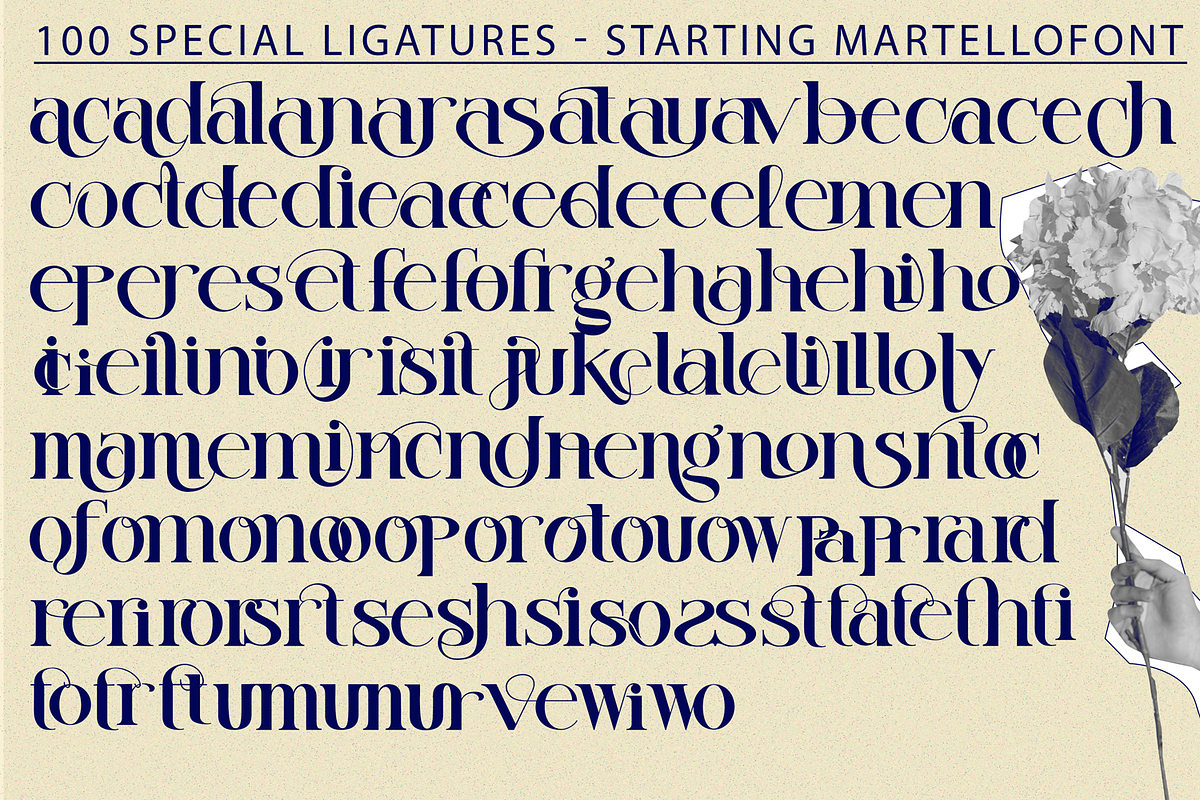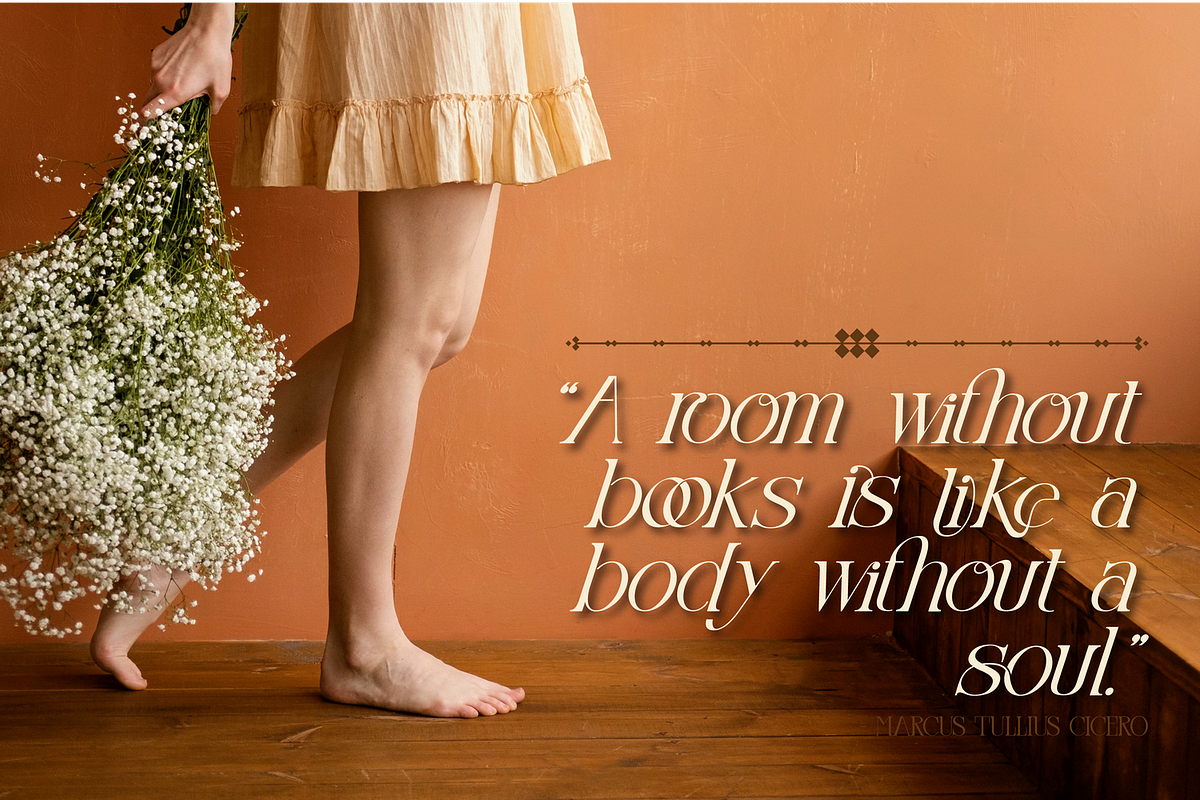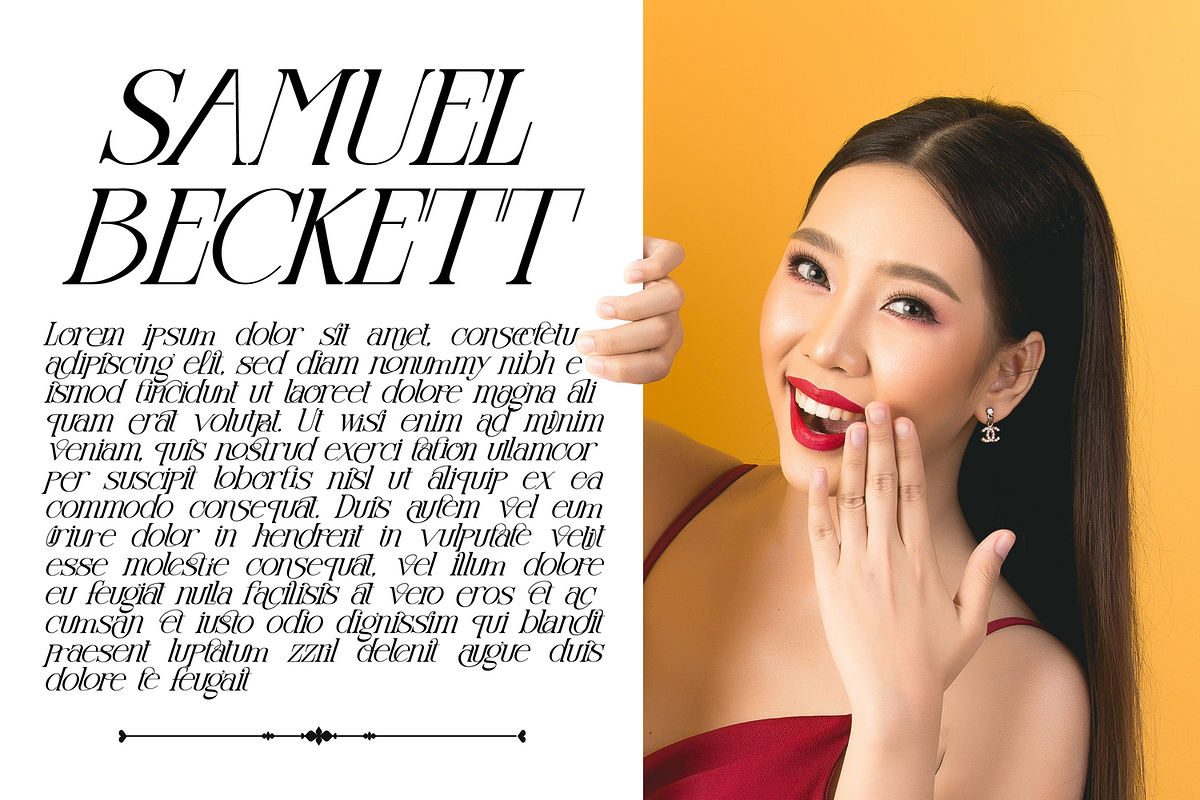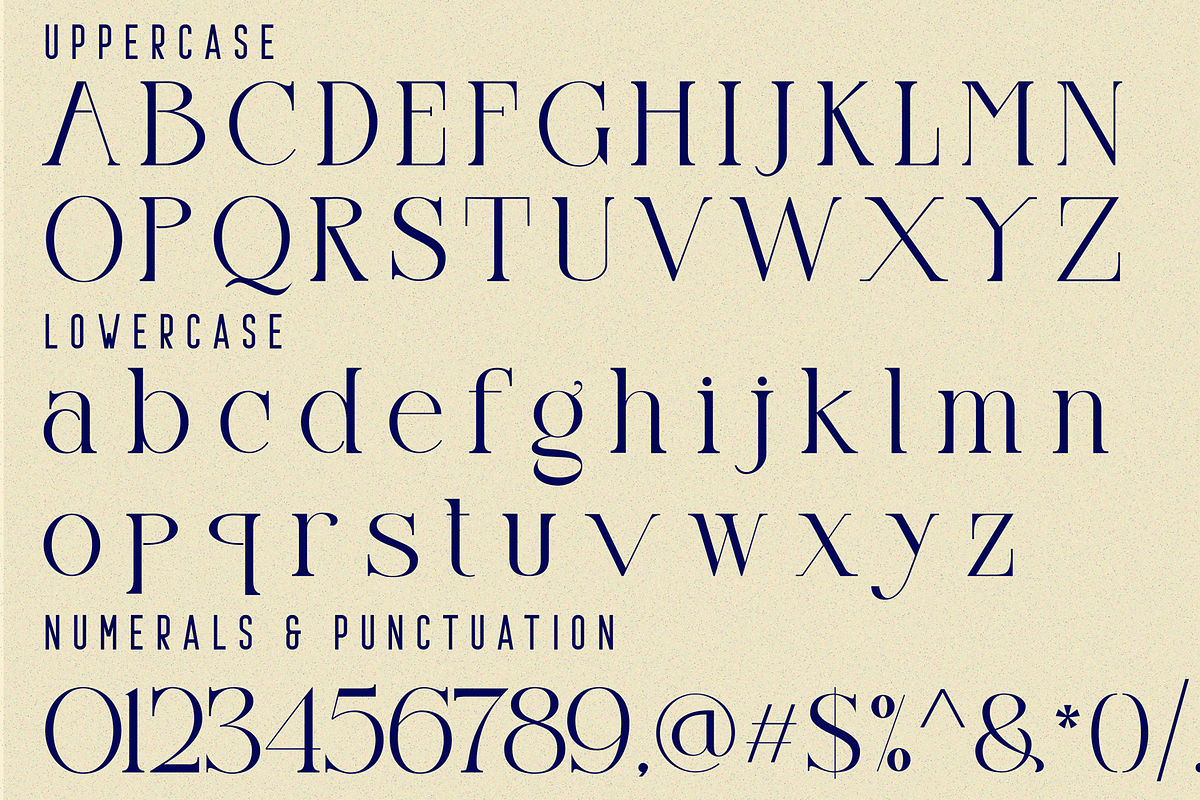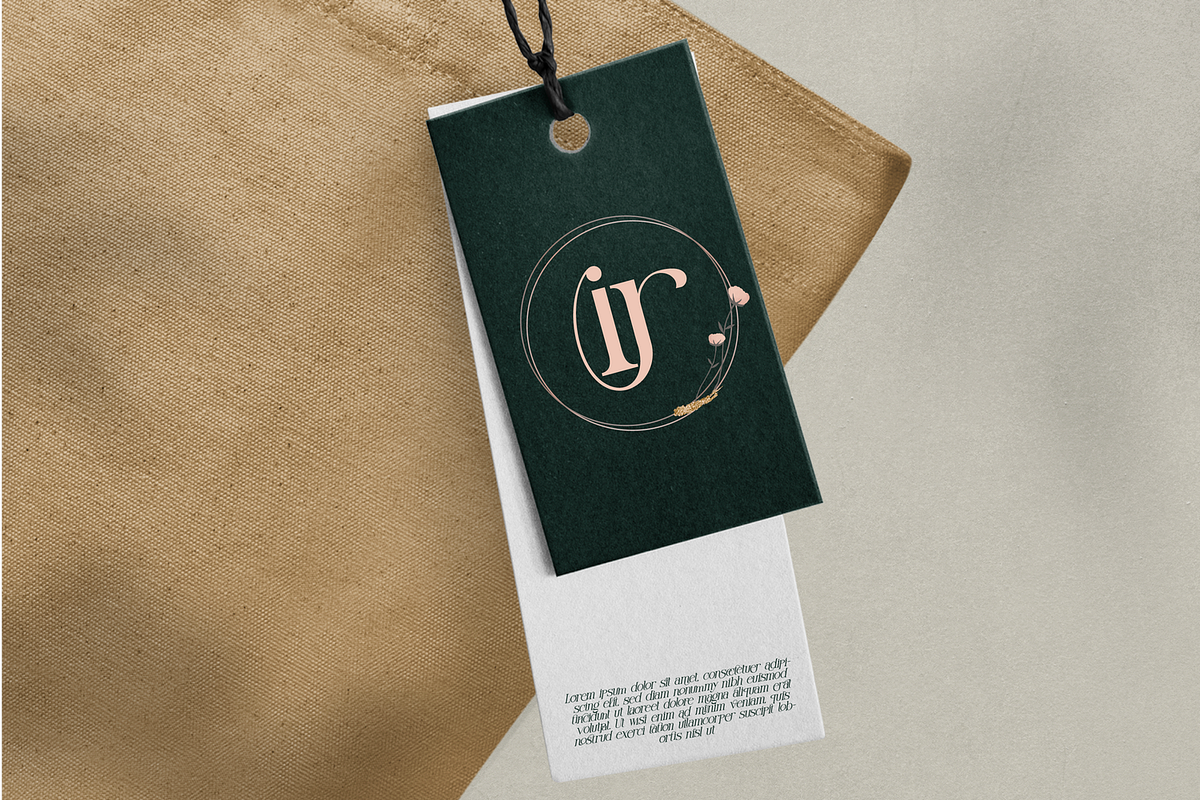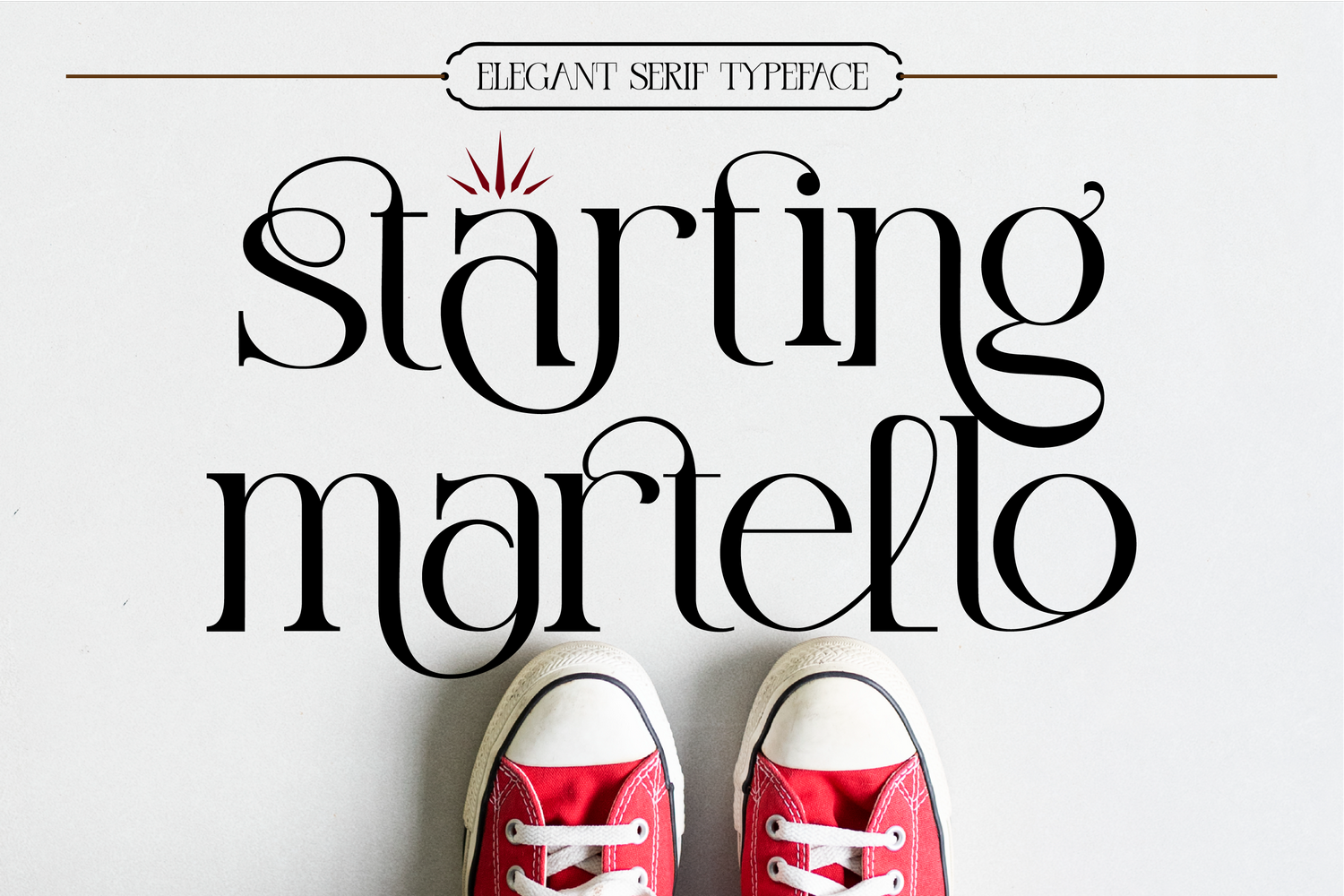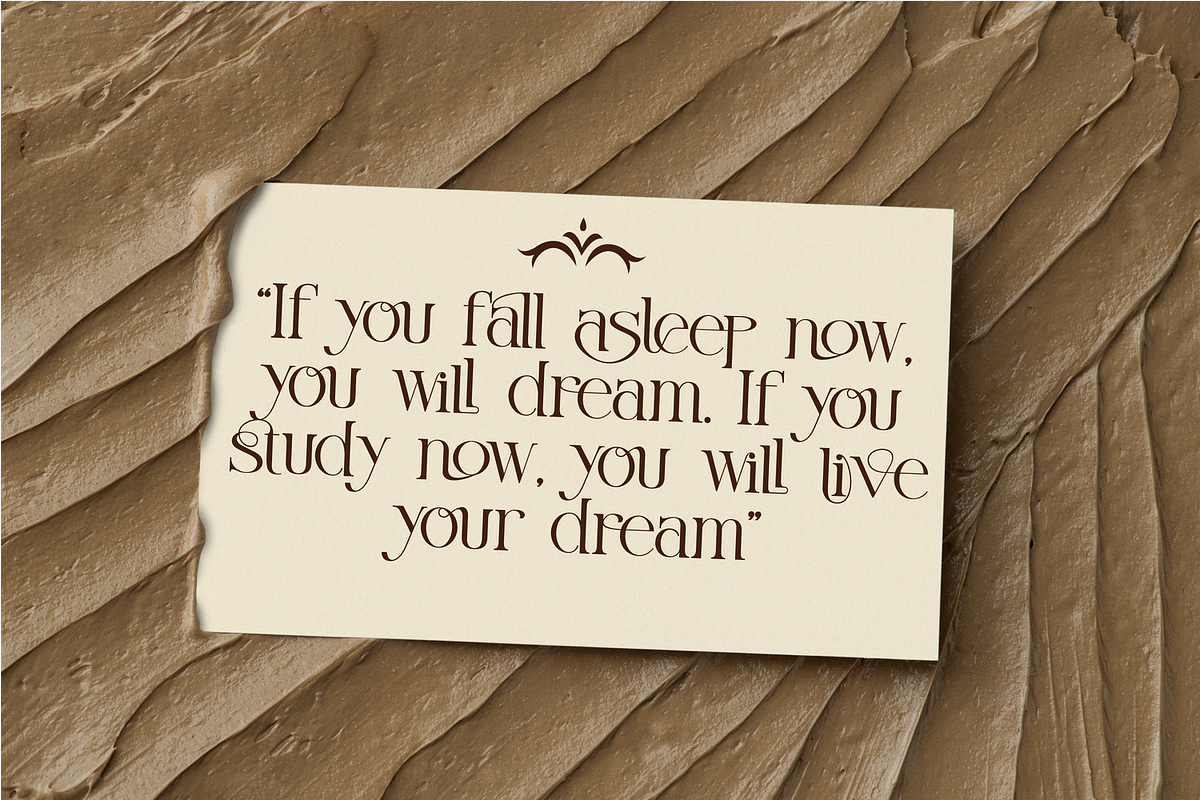
Starting Martello - Ligature Font
starting martello font is a unique and very elegant font for brand and logo designs. It's a modern, elegant and classy serif typeface. This font has many alternatives and ligatures making this font very suitable to be applied to various formal forms such as invitations, labels, logos, magazines, books, greeting/wedding cards, packaging, fashion, make-up, stationery, novels, labels, or any kind of purpose.
starting martello was built with OpenType features and includes 103 ligatures, alternate, numbers, punctuation, and it also supports other languages.
- Special Ligatures